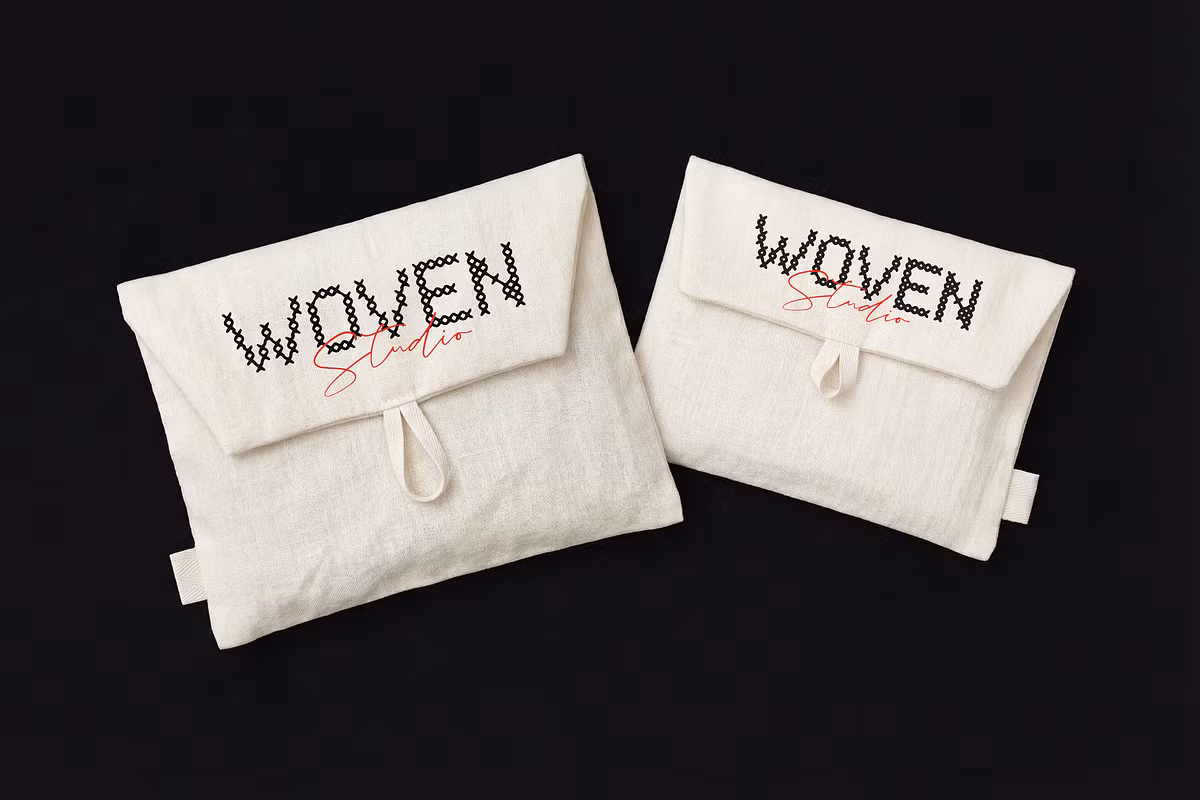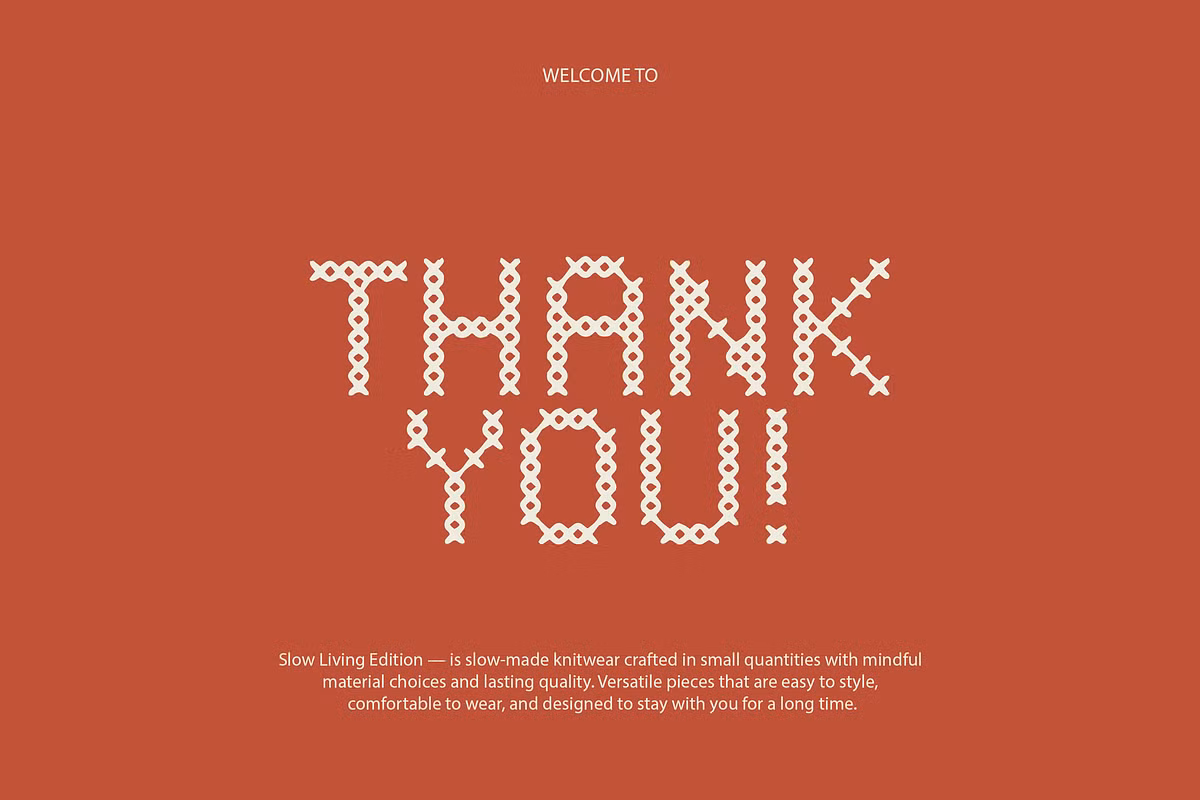
Weave: Hand-Drawn Cross Stitch Font for Cozy Craft Branding
Weave | Cross Stitch Font
Weave: Hand-Drawn Cross Stitch Font for Cozy Craft Branding
Weave is a special kind of font that looks like it was made by hand. It’s perfect for projects that need a cozy, homemade feel, like embroidery or crafts. This font has a unique look that reminds us of old-fashioned textile art. You can use it for lots of different design projects because it comes in two common file formats, OTF and TTF. Weave is great for branding that needs a warm and charming touch, and it’s easy to work with because it’s so versatile. Whether you’re making something handmade or just want your design to feel more personal, Weave is a great choice. It’s a beautiful font that captures the essence of traditional crafts, and it can add a lot of character to your design projects.
Close-up view of cross-stitch font design
Weave font exemplifies a cozy, handmade aesthetic.
Design Style of Weave
Weave’s design is all about cross-stitching, where each letter looks like it’s made up of threads that have been carefully stitched together. This font has a really personal feel to it, like it was drawn by hand, and it’s perfect for crafty projects. The letters are a bit quirky and imperfect, just like handmade embroidery, which gives them a lot of character. Overall, Weave has a fun, playful vibe that’s also somehow sophisticated and elegant, making it a great choice for all sorts of creative endeavors.
Weave’s design has strong lines and soft curves, giving it a cozy feel like handmade fabrics. It also has small touches that make it nice to look at, like gentle bends and the look of threads pulling tight, which adds to its overall beauty. If you’re making tags for things you made yourself or designing invites for a craft market, Weave gives your words a special, handmade touch.
Character Sets and Features
Weave has a big collection of characters, including capital and small letters, numbers, and lots of punctuation marks. This makes it really versatile and useful for many different design projects. The way the font is designed means that all the characters look like they belong together, so you can use them in your designs without anything looking out of place. Whether you’re working on a big project or just need a font for a small task, Weave’s consistent style makes it easy to use and helps your text look great.
Use Cases for Weave
Weave is really great for a lot of different creative projects, especially for people who love crafting. There are many ways to use it, such as:
• Branding for Handmade Goods: Weave can be used for logos, labels, and packaging for homemade products, giving them a unique identity that resonates with customers looking for artisanal quality.
• Invitations and Greeting Cards: The charming design of Weave makes it an excellent choice for personal stationery, invitations to craft fairs, or handmade greeting cards that require a cozy touch.
• Social Media Graphics: Using Weave in social media posts can create a warm, inviting atmosphere, perfect for engaging with audiences interested in crafts and DIY projects.
• Website Design: Incorporating Weave into your website can enhance the overall aesthetic, especially for e-commerce sites focused on handmade or vintage products.
Examples of branding using Weave font
Weave enhances branding for homemade products.
When you’re working with typography, choosing the right font combinations can really make your design stand out. Weave is a great example of a font that pairs well with lots of other typefaces, creating a nice balance and contrast. Here are some suggestions for pairing fonts with Weave:
• Sans-Serif Fonts: Pair Weave with clean sans-serif fonts like Montserrat or Lato to create a modern contrast that highlights the handcrafted feel of Weave.
• Serif Fonts: Combining Weave with a classic serif font like Playfair Display can create an elegant look, ideal for upscale branding or invitations.
• Other Hand-Drawn Fonts: For a playful design, consider pairing Weave with other hand-drawn fonts, such as Pacifico or Amatic SC, which can enhance the whimsical feel of your project.
By choosing Weave, you’re not just getting a one-of-a-kind font, you’re also backing the creative process that goes into making handmade designs. This makes Weave a great asset for your design collection, especially if you’re into crafting or just love the look of handmade things. It’s a way to add some personality to your work and support the artists who make these unique designs possible. Whether you’re a crafter yourself or just someone who appreciates the beauty of handmade goods, Weave is a great choice.
Weave is a really nice font that looks like it was drawn by hand. It’s perfect for making your brand look cozy and homemade. The font has a lot of different characters, so you can use it for lots of things. You can use it to make logos, invitations, or even just to make your social media posts look nicer. Weave is a great choice because it adds a warm and charming touch to your projects. It’s like a work of art that can help you connect with the people you’re trying to reach. So, if you want to make your projects look more personal and creative, Weave is a great font to use. It can really bring your ideas to life and make them look special.